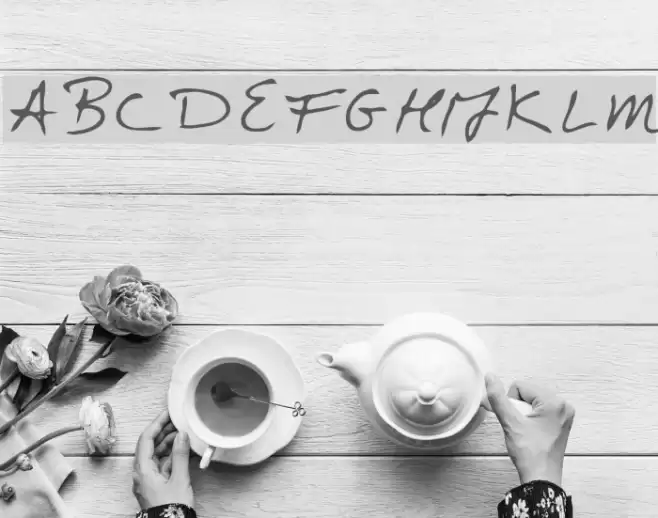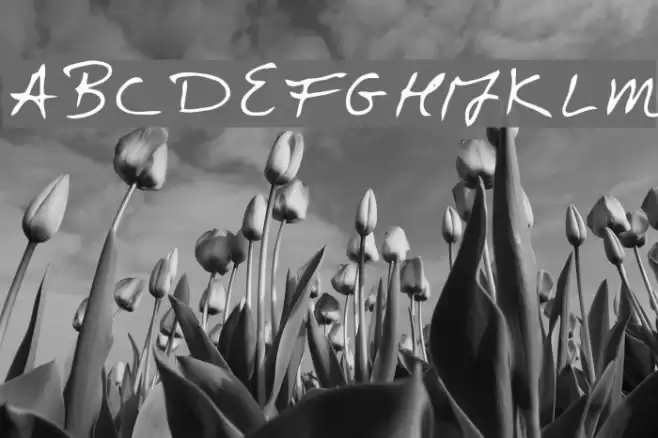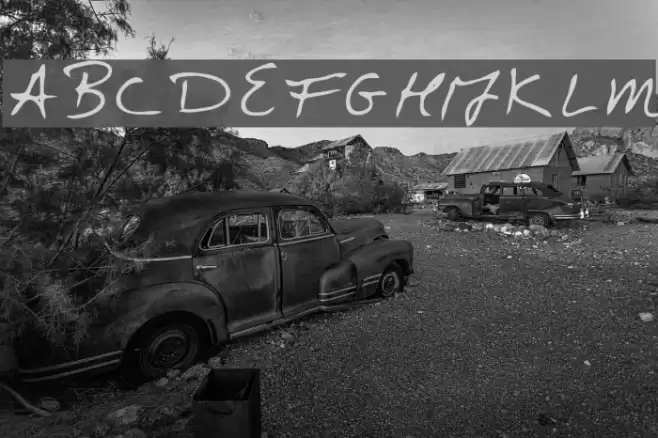
Doctor Font
Doctor Description
This font embodies a dynamic and expressive handwritten style, characterized by its fluid and spontaneous strokes. The letters have a natural, organic flow, with varying thickness that adds a sense of movement and energy. The uppercase letters are bold and slightly slanted, while the lowercase letters maintain a consistent rhythm, enhancing readability despite their casual appearance. Numbers and special characters follow the same lively style, making the font versatile for creative projects. Its unique charm lies in its ability to convey a personal touch, reminiscent of a quick, yet thoughtful handwritten note.
A dynamic, expressive handwritten font with fluid strokes and a personal touch from Handwritten fonts.
- Proposed Projects: Ideal for personal notes, invitations, greeting cards, and creative branding projects.
- Overall Style: Casual, Expressive
- Use Case: Logos, Invitations, Personal notes